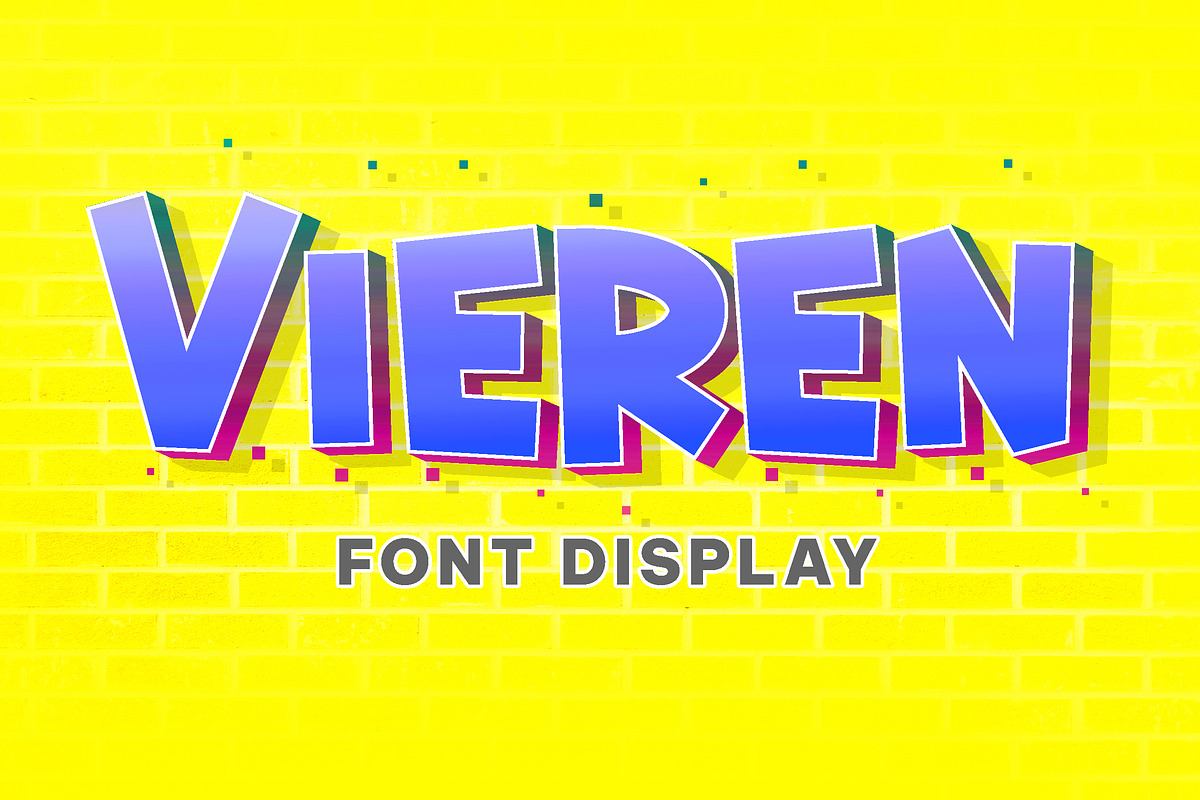
Vieren Font Free Download is a bold and stylish display typeface designed to make a statement. With its geometric structure, sharp angles, and modern flair, this font is perfect for eye-catching headlines, branding, posters, advertisements, and any project that demands attention and sophistication.
The strong, clean letterforms of Vieren bring a contemporary feel to any design, making it ideal for both print and digital applications. Whether you’re creating a striking logo, a promotional banner, or a trendy social media graphic, Vieren adds impact and personality. Vieren Font Free Download allows you to test this unique display font in personal projects before purchasing a commercial license.
Make your designs unforgettable with Vieren — the display font that commands attention and adds bold elegance.